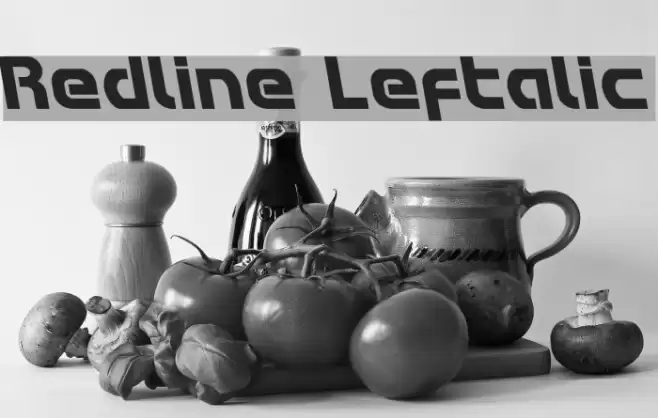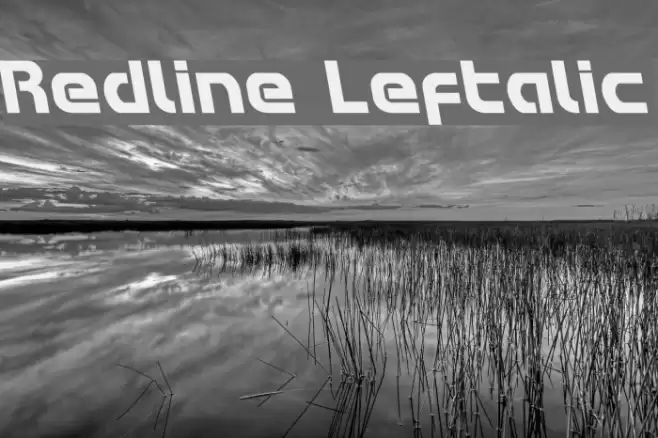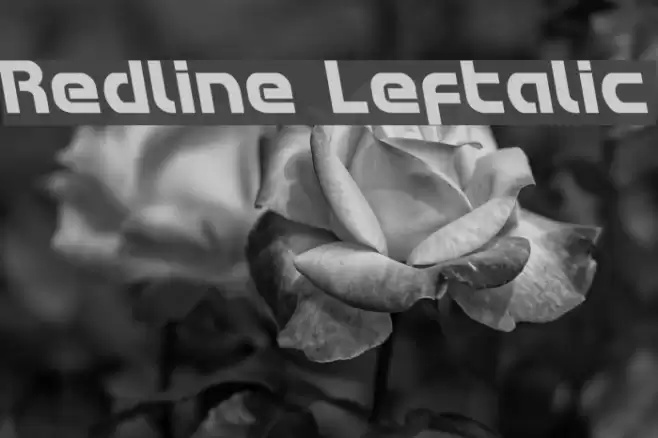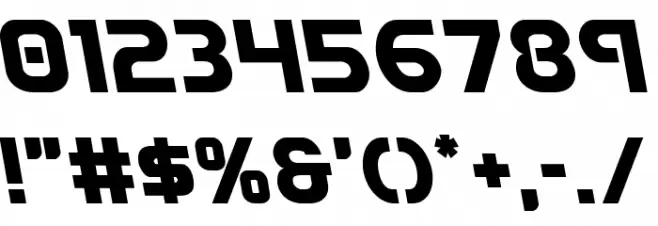
Redline Leftalic Font
Redline Leftalic Description
This font features a bold and dynamic style with a distinct slant to the left, giving it a sense of motion and energy. The characters are robust and geometric, with a strong presence that makes them stand out. The uppercase and lowercase letters maintain a consistent weight, contributing to a cohesive look. The numerals and special characters follow the same bold and angular design, ensuring uniformity across all glyphs. The font's unique style is suitable for projects that require a modern and assertive aesthetic.
A bold, left-slanted font with a geometric and dynamic style from Sci-fi fonts.
- Proposed Projects: Ideal for sports branding, dynamic posters, modern logos, and attention-grabbing headlines.